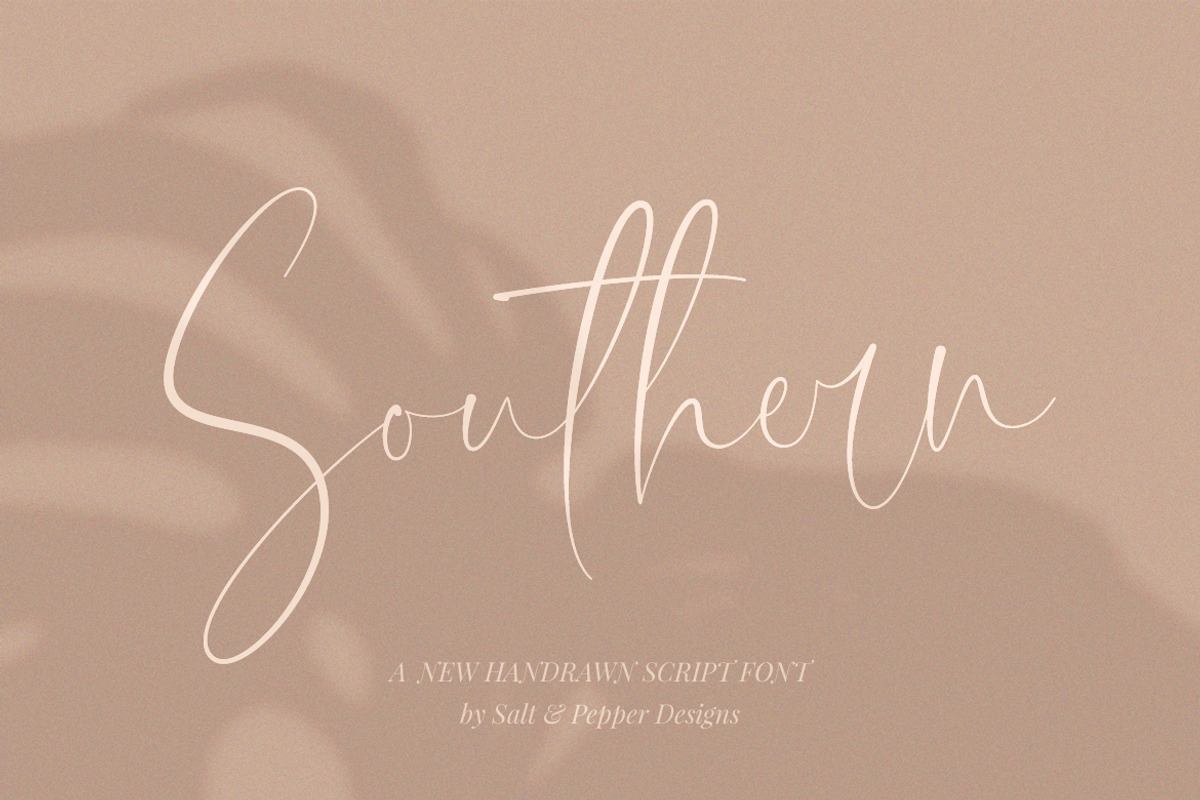
Southern Script Font Free Download
Southern Script Font Free Download is a charming and smooth handwritten typeface that brings a touch of southern warmth and elegance to your designs. With its flowing curves, natural brush strokes, and relaxed style, this font is perfect for rustic wedding invitations, farmhouse signage, cozy branding, lifestyle blogs, and heartfelt quotes.
Its handcrafted feel gives your typography a personal, welcoming touch—ideal for projects that want to evoke authenticity, comfort, and down-to-earth beauty.